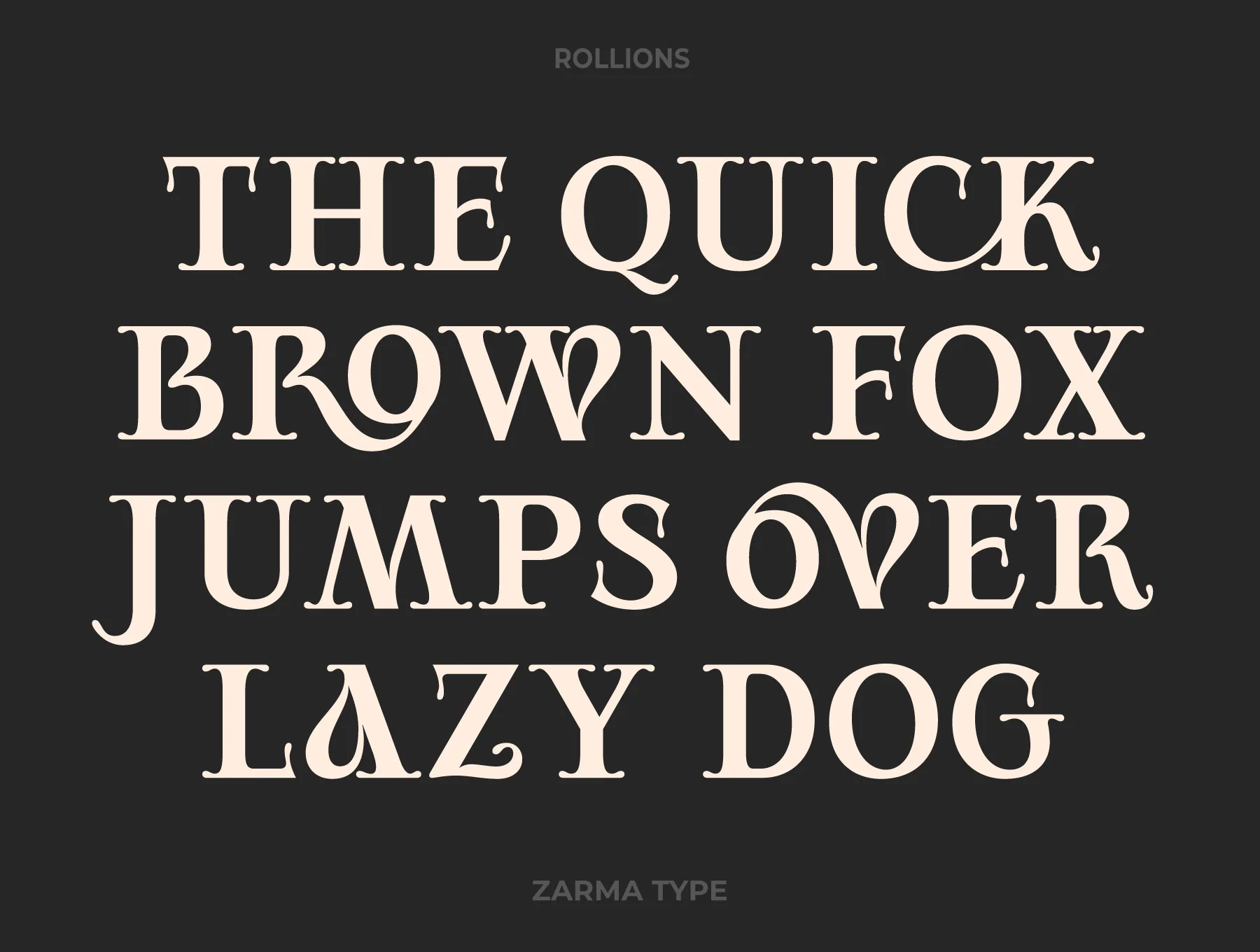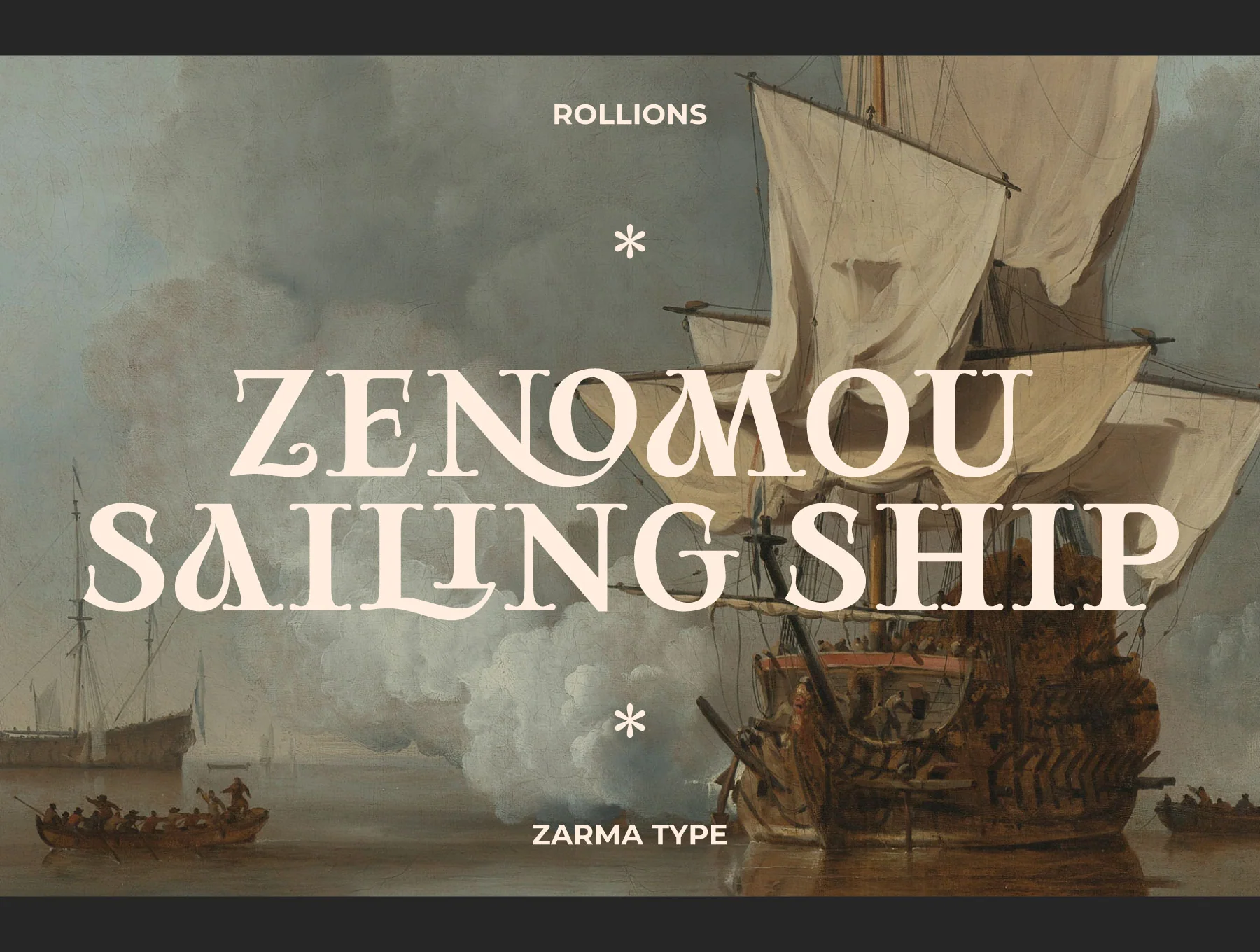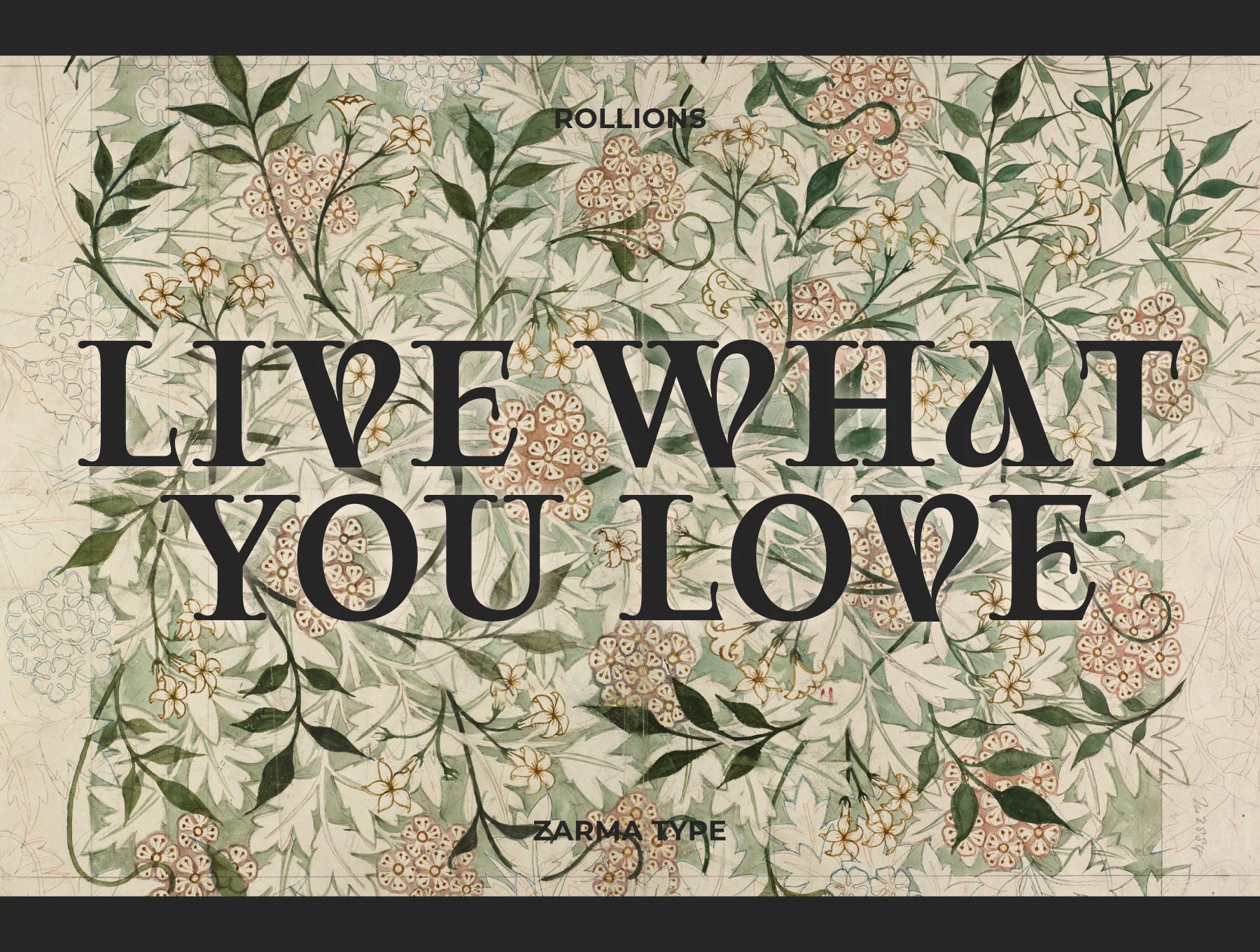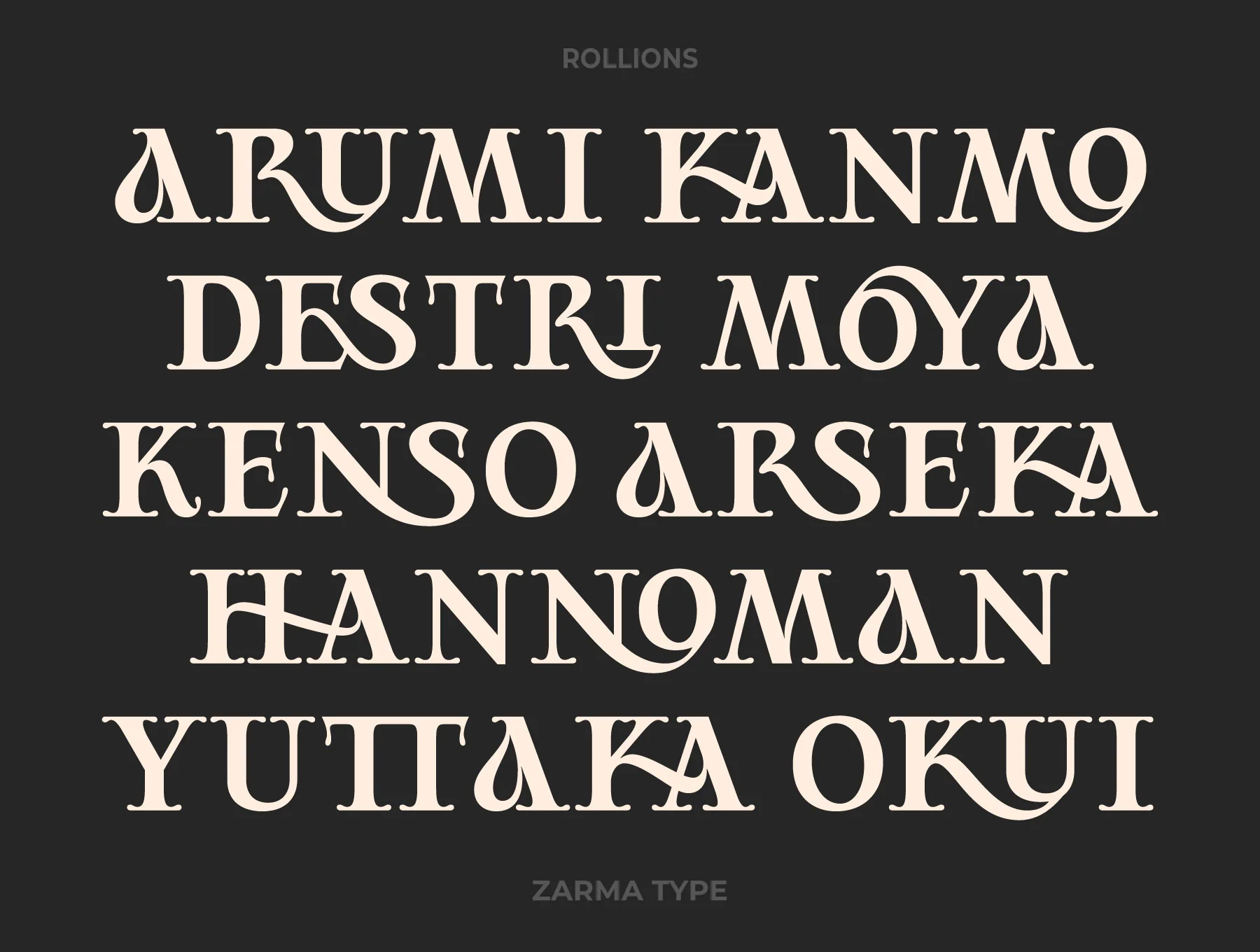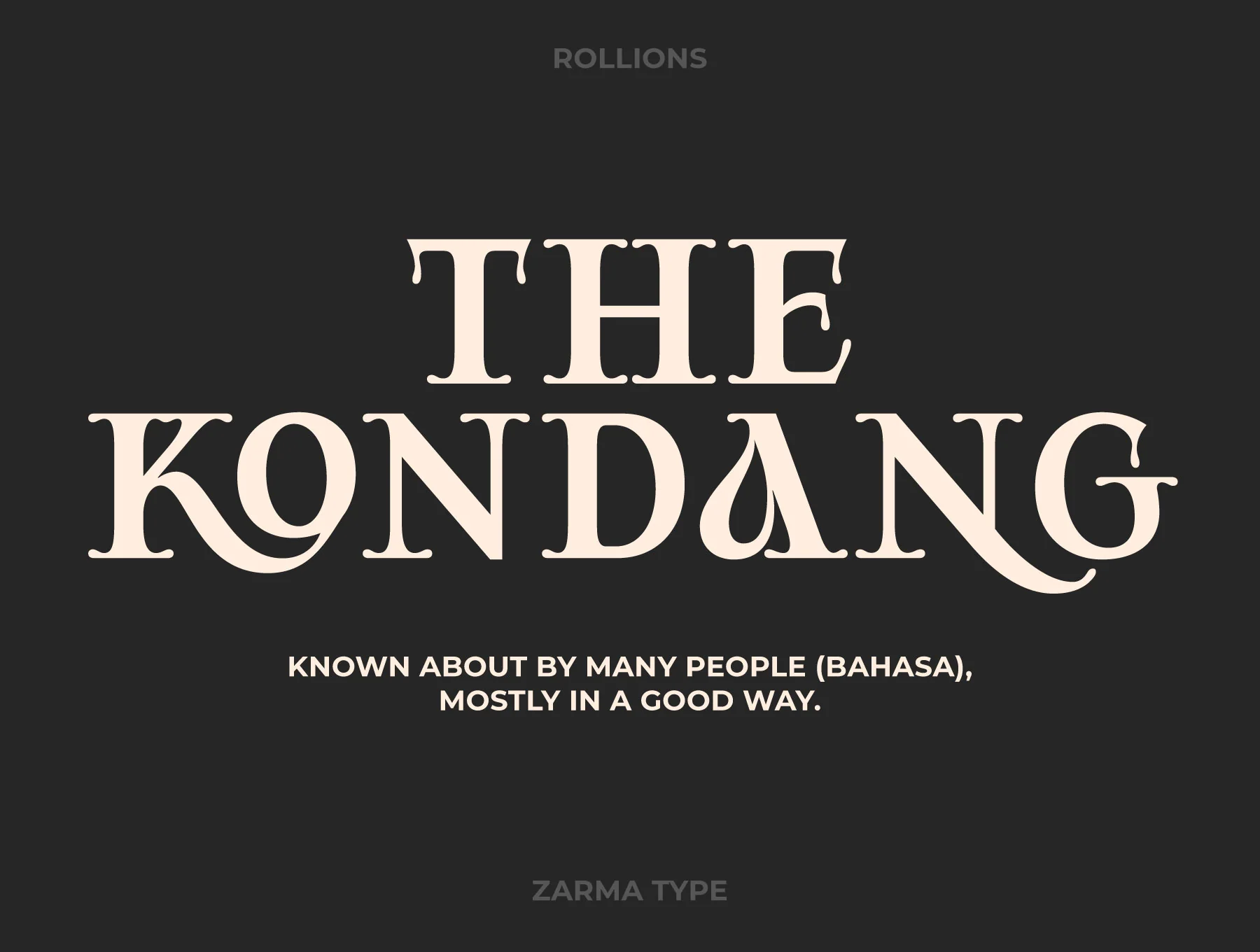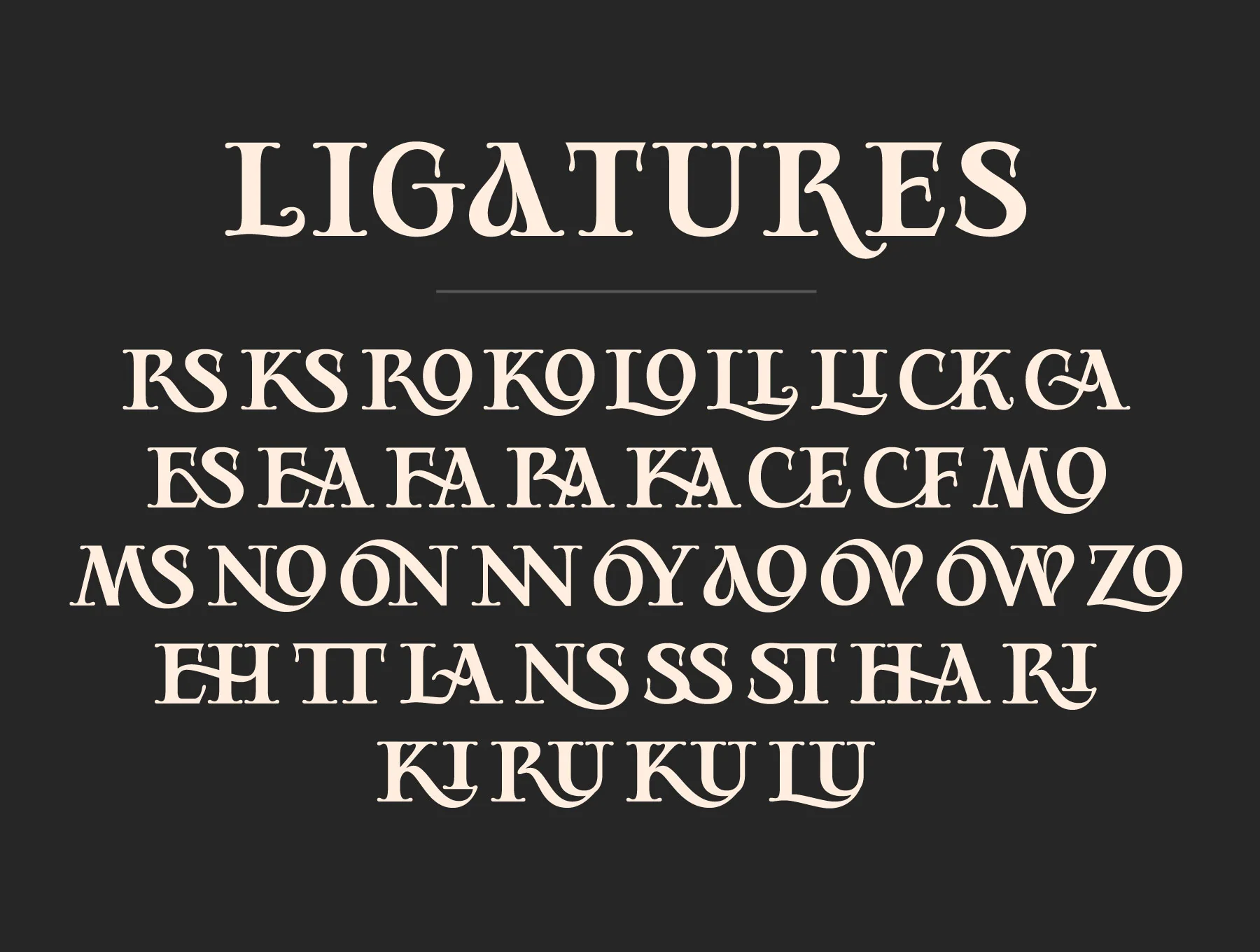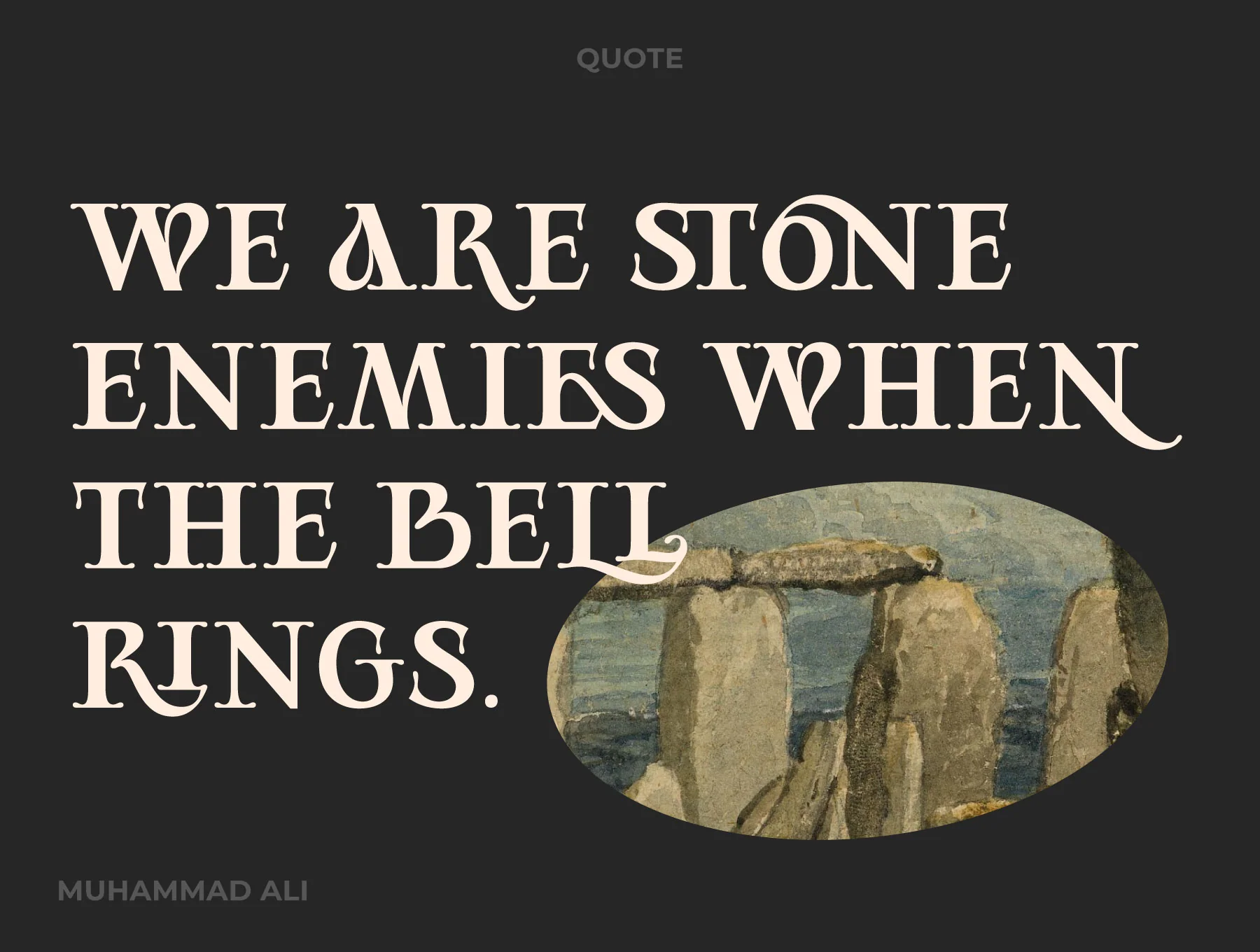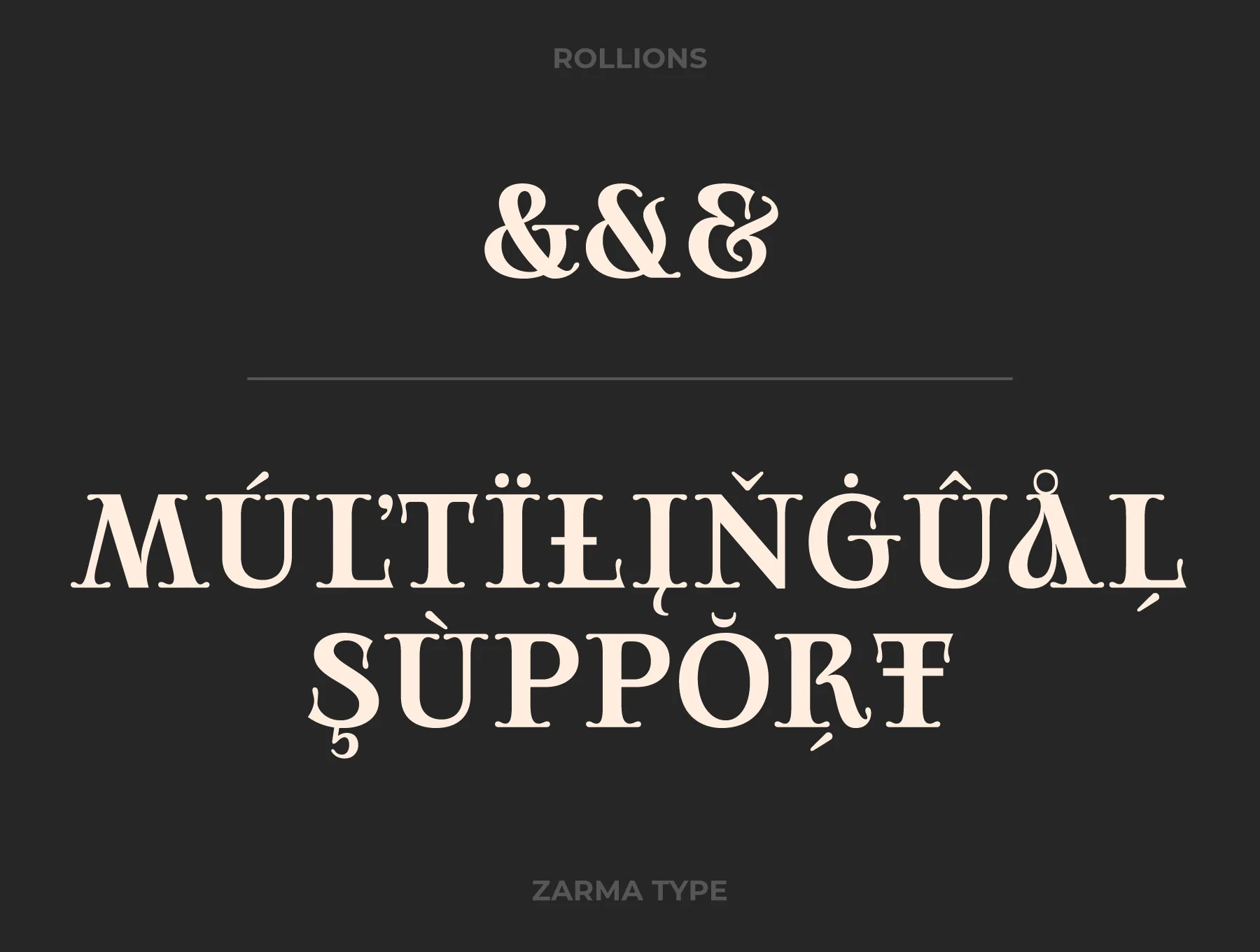
Rollions Font
Traditional serif font
Capital letters, numbers, and punctuation marks
Elegant ligature characters
Support for multiple languages
Meet Rollions, an all-caps display serif typeface combining refined beauty with timeless style. Rounded serifs, stylistic sets, discretionary ligatures, and broad multilingual support give designs a striking character. Ideal for logos, elegant headlines, and standout typography. Includes Rollions. Access alternates via Glyphs in Photoshop or Illustrator.